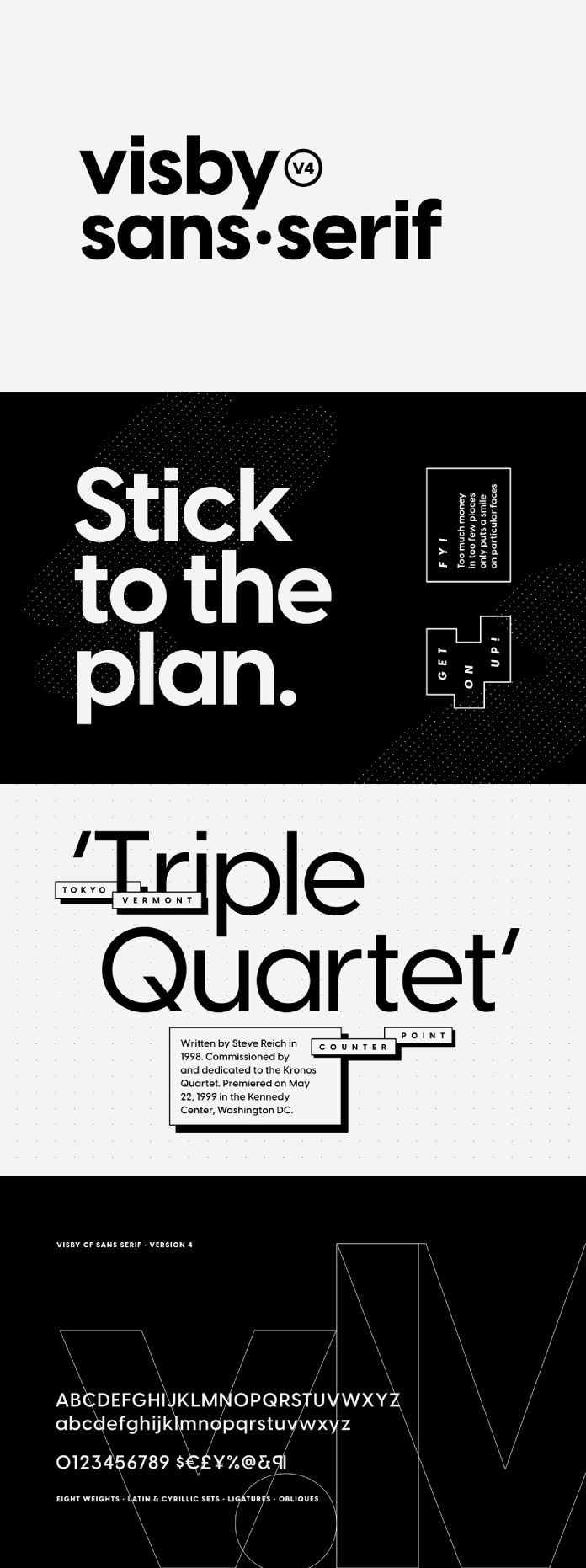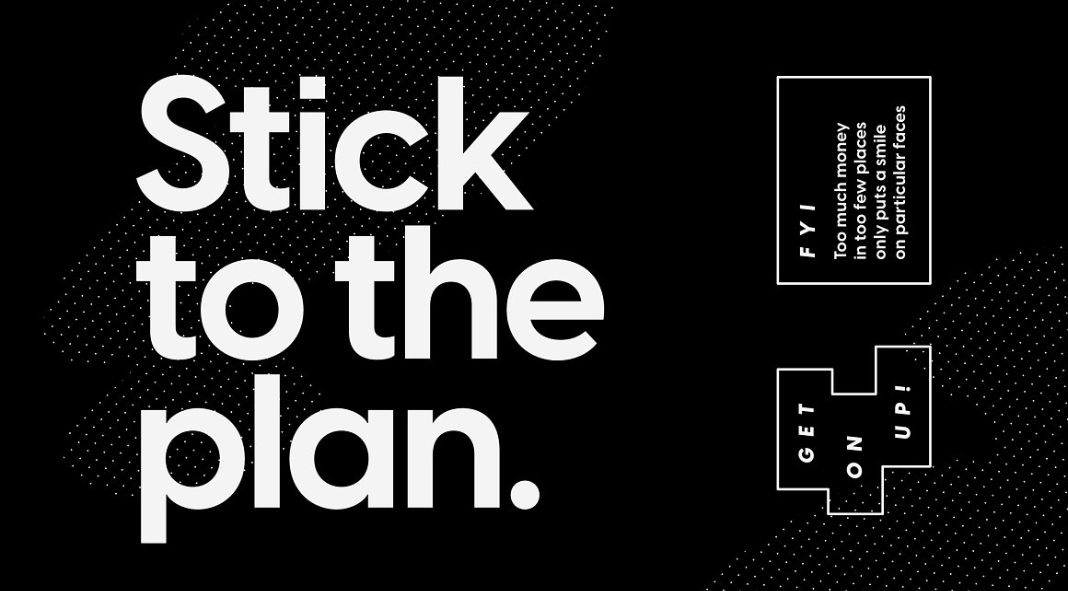
Discover Visby CF, a geometric sans-serif font family that provides clarity and simple lines.
Visby CF, inspired by the icy grandeur of the Arctic, is a geometric typeface that symbolizes both simplicity and power. Designed by Connary Fagen, it features hard lines with sharp corners that fuse elegantly with its round letterforms to create an inviting yet authoritative aura. Version 4 of the Visby CF font family has been further refined for improved functionality, featuring redrawn letters and punctuation marks as well as updated language support and optimized kerning. Additionally, it now offers a bolder weight option while providing better handling within the Figma design app – making Visby CF your all-in-one typography solution!
The Visby CF font family comes with eight weights and matching obliques. The extensive character set supports Latin and Cyrillic letters. It is packed up with OpenType features including alternates and ligatures. Just click on one of the following links for more.